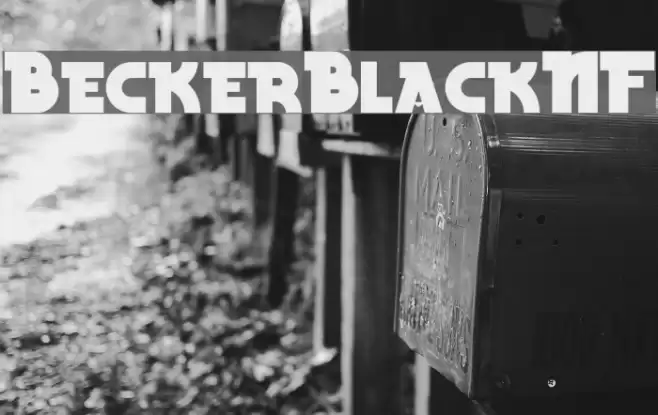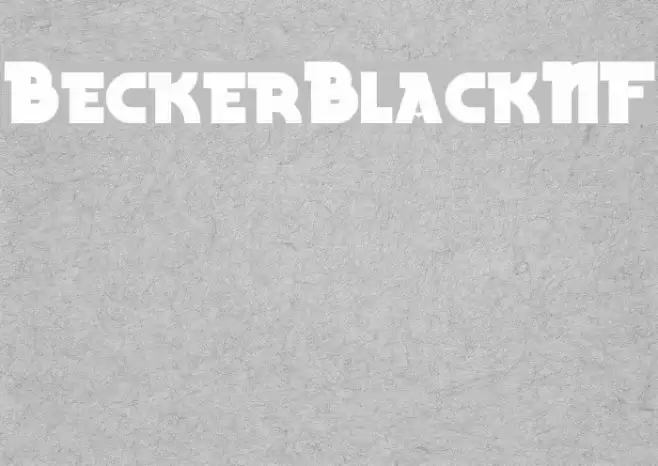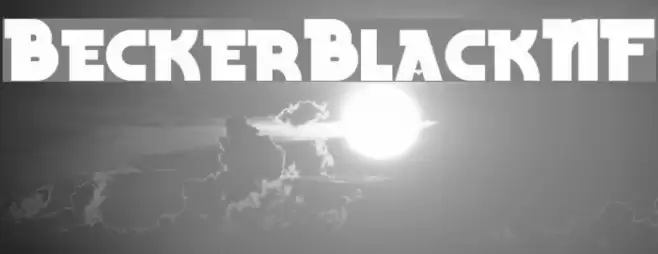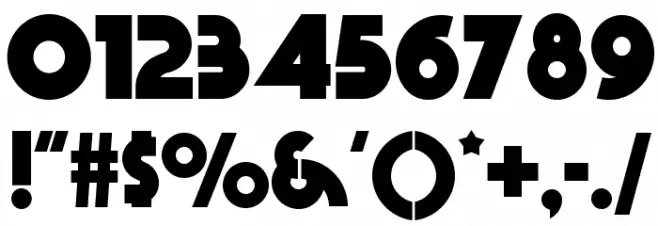
BeckerBlackNF Font
BeckerBlackNF Description
This bold and striking font features thick, geometric letterforms with a strong presence. The uppercase letters are crafted with sharp angles and a uniform stroke width, giving them a robust and impactful appearance. The lowercase letters maintain the same boldness, ensuring consistency across the typeface. Numbers are equally bold, with a rounded design that complements the overall style. Special characters are designed to match the font's weight and geometric nature, making them stand out effectively. This font is ideal for projects that require a powerful and attention-grabbing typeface.
A bold, geometric font with strong, uniform strokes and a striking presence from Uncategorized fonts.